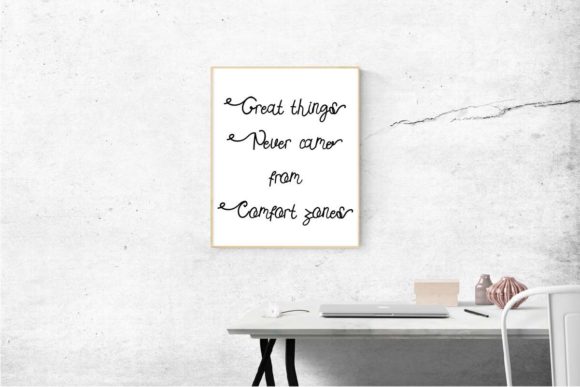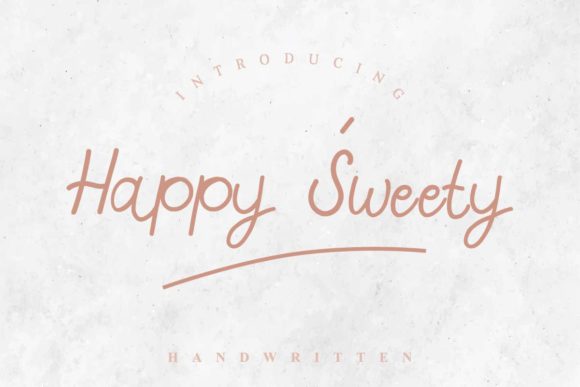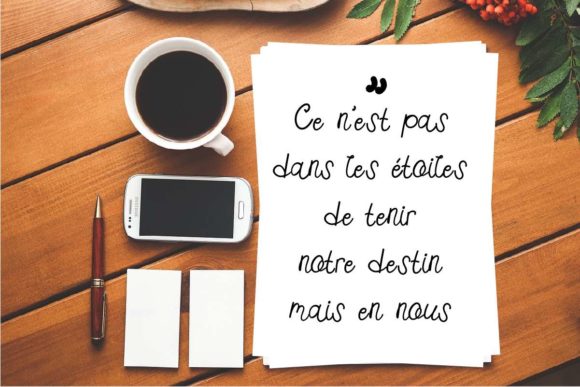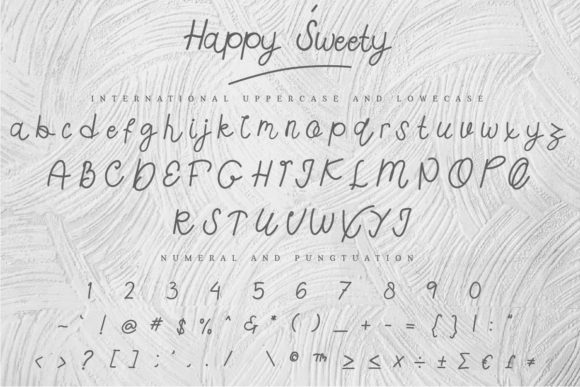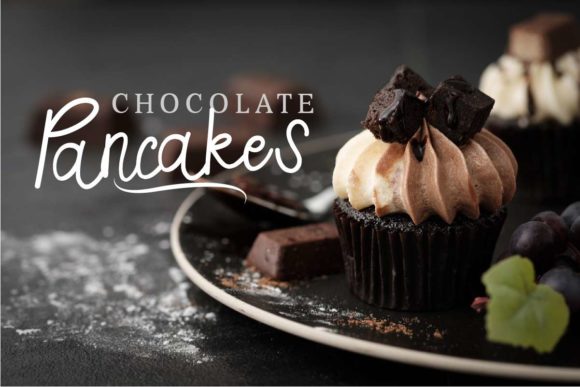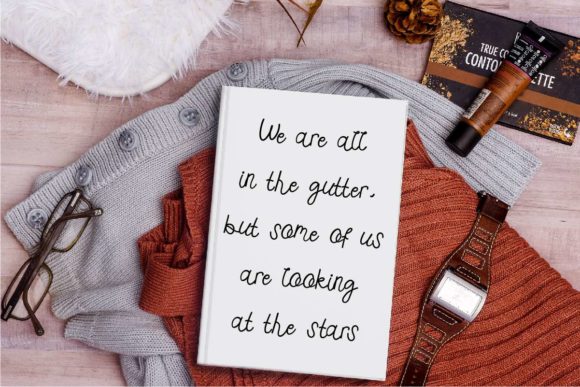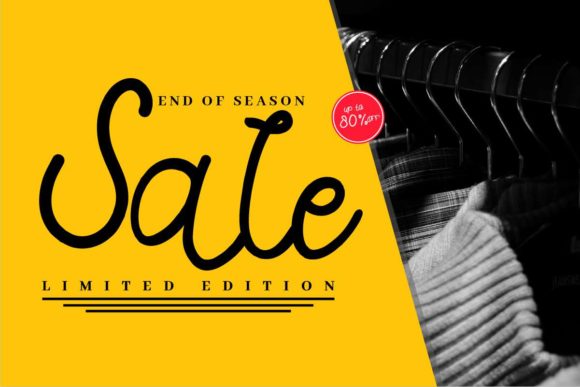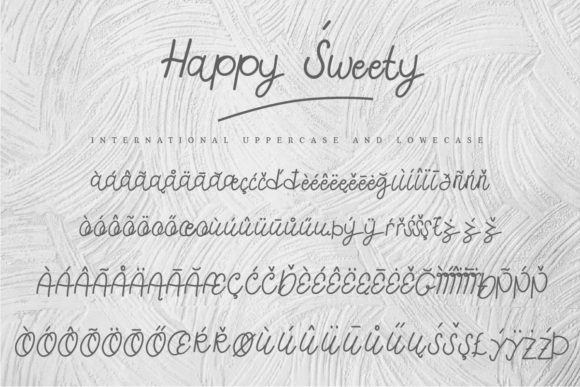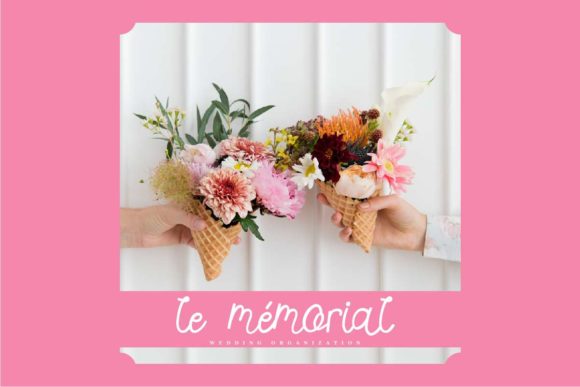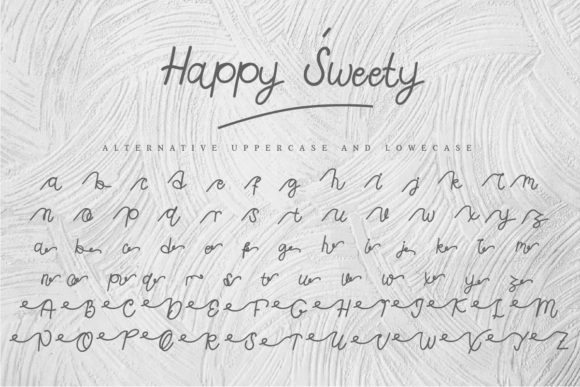
Happy Sweety Font
About Happy Sweety Font
Happy Sweety is a gorgeously light and charming script font that radiates authenticity. Fall in love with its magnetic style!